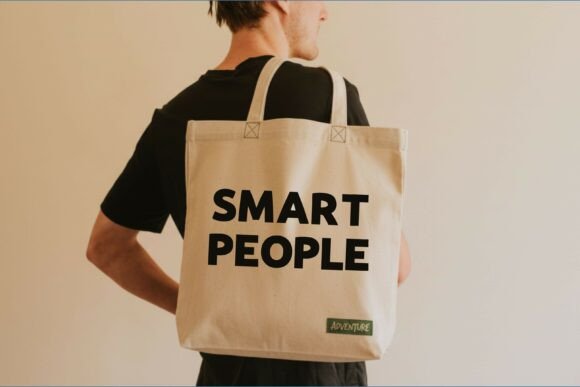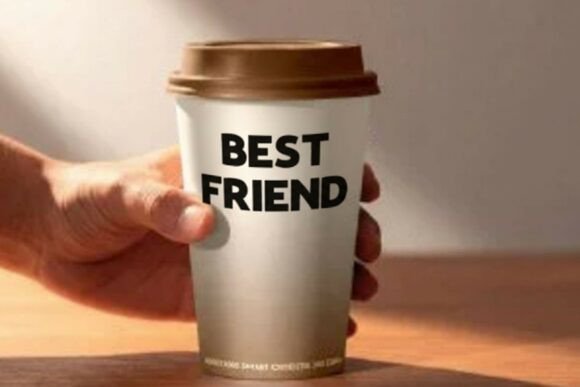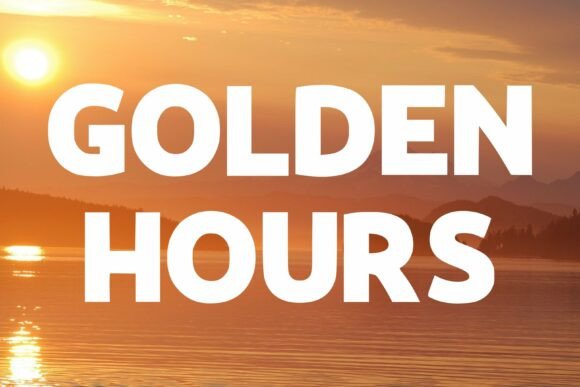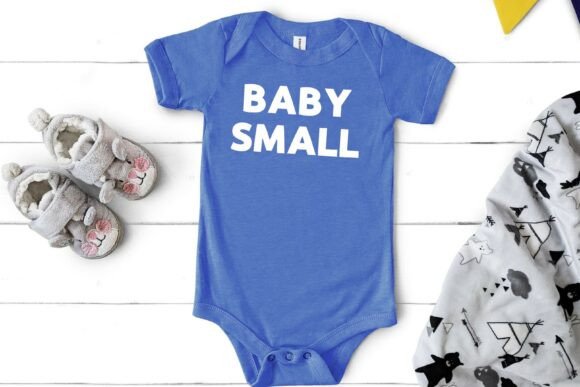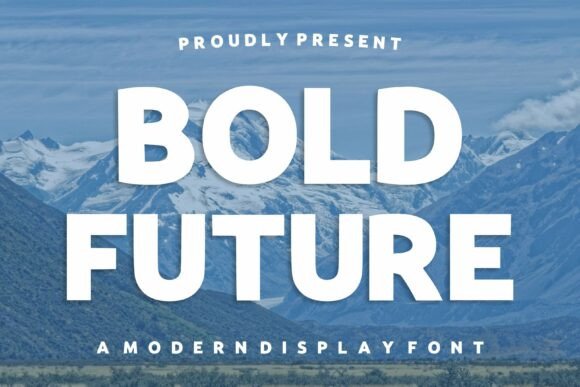
The Power of Bold Future: A Modern Display Font for Impactful Designs
I’ll never forget the time I was working on a project for a tech startup, and I was struggling to find the perfect font to convey their innovative and forward-thinking brand. The client wanted a bold, modern look that would make their logo and marketing materials stand out. After hours of searching, I stumbled upon Bold Future, and it was love at first sight! 💡
With its clean lines, geometric structure, and bold weight, Bold Future instantly caught my attention. I knew right then and there that it was the perfect fit for the project. In this article, I’ll share with you why I love Bold Future, its features, and how to make the most of it in your designs.
A Personal Review of Bold Future
- ✨ Strong and modern aesthetic: Bold Future has a sleek, futuristic look that’s perfect for contemporary designs.
- ✅ Clean lines and geometric structure: The font’s clean lines and geometric shape make it easy to read and versatile for various design applications.
- 💥 Attention-grabbing: The bold weight of Bold Future ensures that your headlines, posters, and branding materials will demand attention.
While Bold Future is an excellent font, there are a few things to keep in mind:
- 🤔 Limited use in body text: Due to its bold weight, Bold Future might not be the best choice for body text, especially in longer paragraphs.
- ⚠️ Careful with kerning: As with any bold font, pay attention to kerning to ensure that the letters are evenly spaced and don’t collide.
A Practical Guide to Using Bold Future
Bold Future supports OpenType features, including ligatures, stylistic alternates, and glyphs. These features allow you to add visual interest and creativity to your text. For example, you can use ligatures to combine letters and create a more fluid, connected look.
The Backstory of Bold Future
Bold Future was designed with the goal of creating a strong, modern font that would make a powerful visual impact. Inspired by futuristic and minimal aesthetics, the font’s designer aimed to create a clean, geometric structure that would convey strength, innovation, and clarity.
Q: What is Bold Future font?
A: Bold Future is a strong and modern display font designed to make a powerful visual impact.
Q: What design applications is Bold Future suitable for?
A: Bold Future is perfect for contemporary designs that demand attention, including headlines, posters, branding, and digital content.
Q: Can I use Bold Future for body text?
A: While Bold Future can be used for body text, its bold weight might not be the best choice for longer paragraphs. It’s recommended to use it for headlines and titles.
Q: Does Bold Future support OpenType features?
A: Yes, Bold Future supports OpenType features, including ligatures, stylistic alternates, and glyphs.